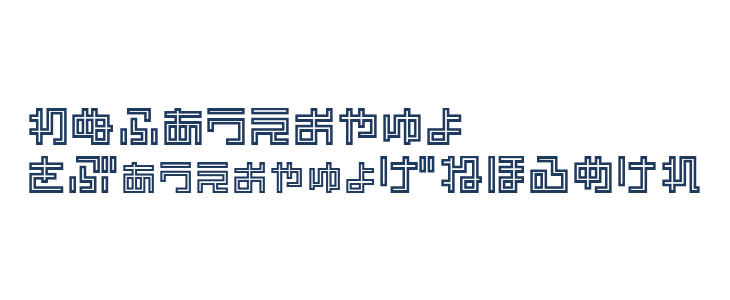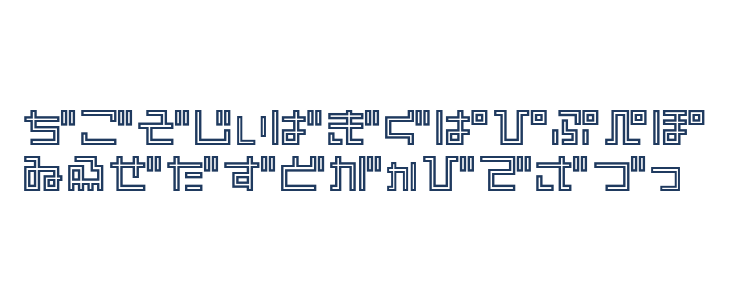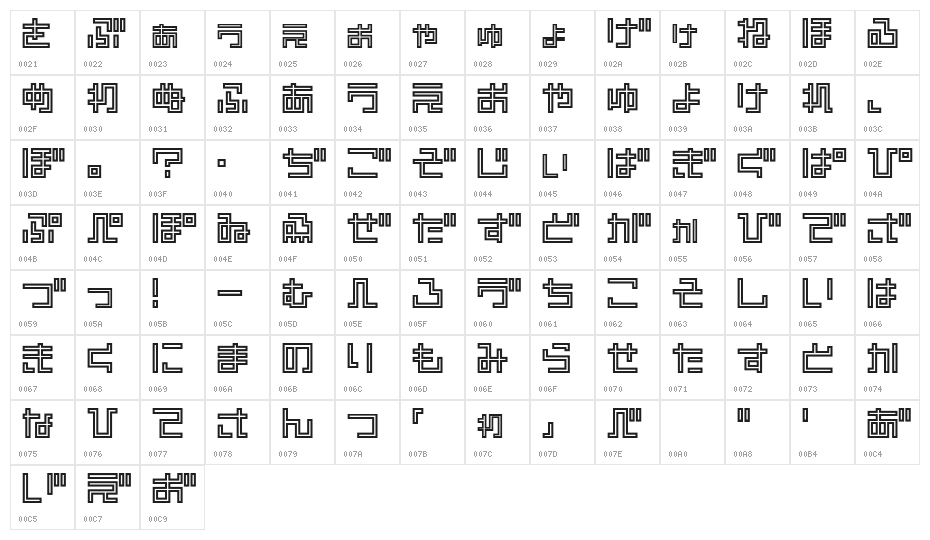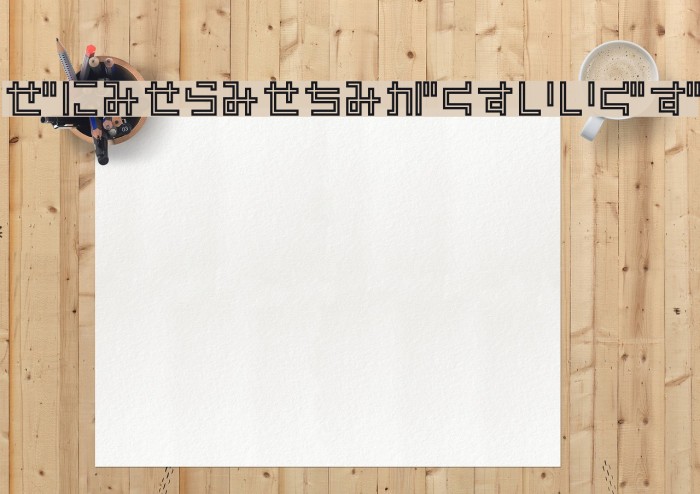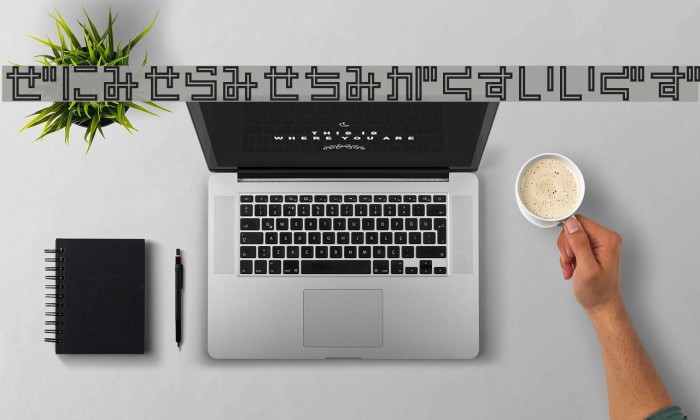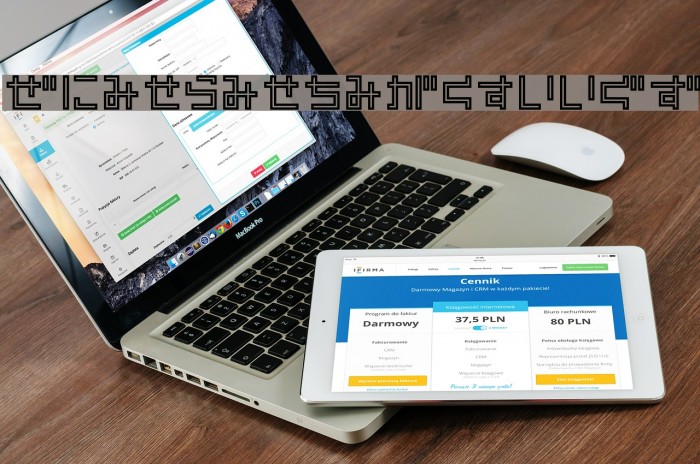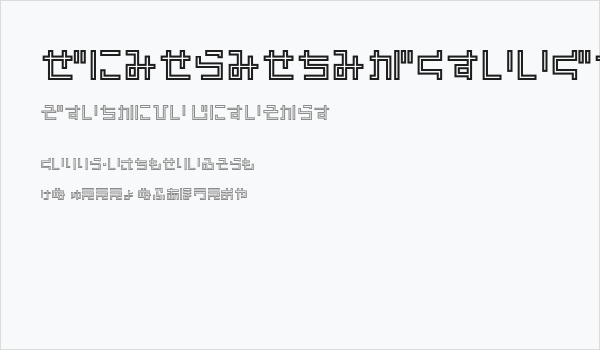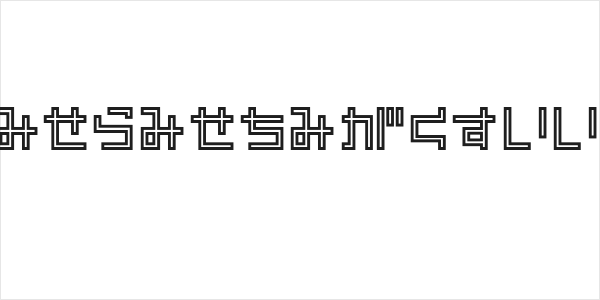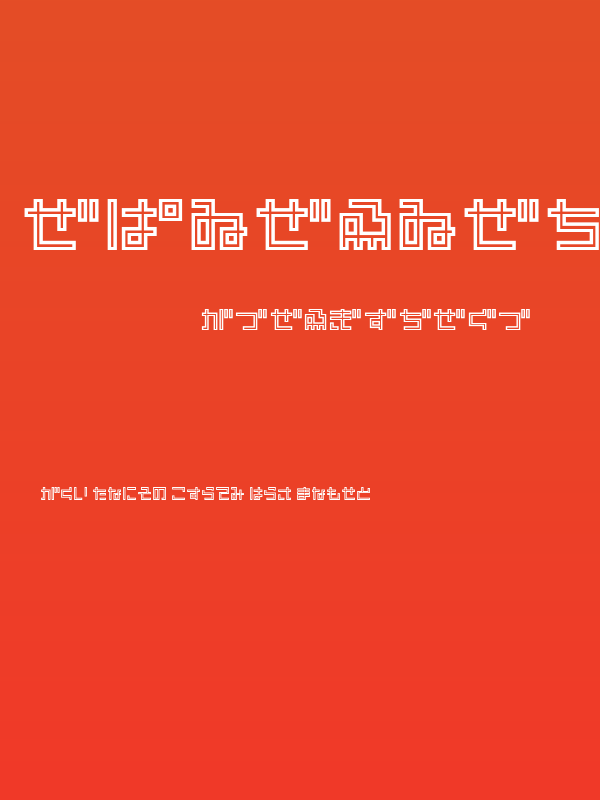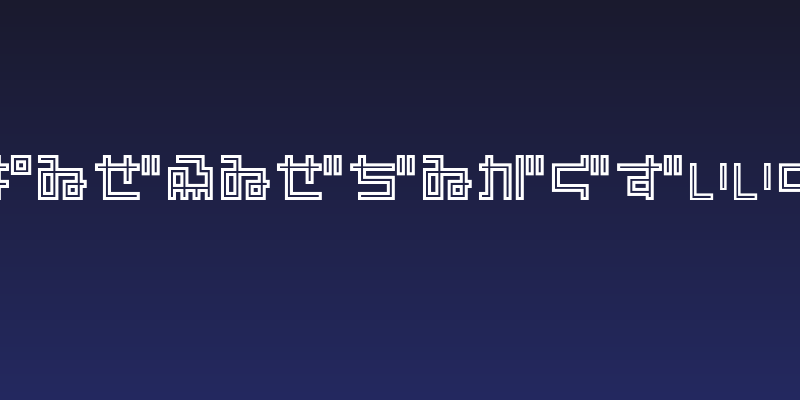
PinponpanThreeHR Font
PinponpanThreeHR Description
This font features a unique, decorative style with a blocky, geometric appearance. Each character is outlined, creating a hollow effect that adds depth and dimension. The lines are uniform in thickness, contributing to a consistent and cohesive look across all characters. The font maintains a modern aesthetic with a playful twist, making it stand out in creative projects. The spacing between characters is balanced, ensuring readability while maintaining its distinctive style. Its bold and structured design makes it suitable for eye-catching displays and headings.
| Proposed Projects | Ideal for creative projects such as posters, logos, and headlines where a bold, modern look is desired. |